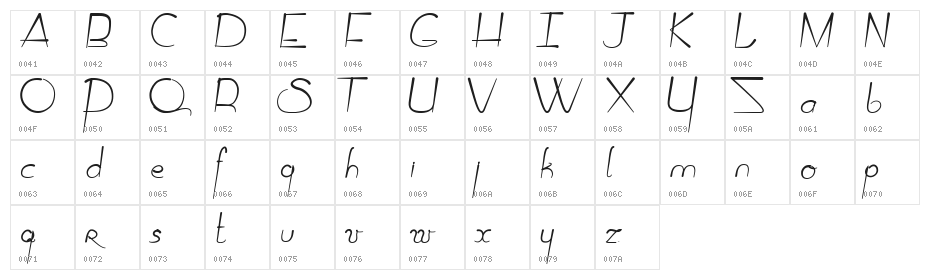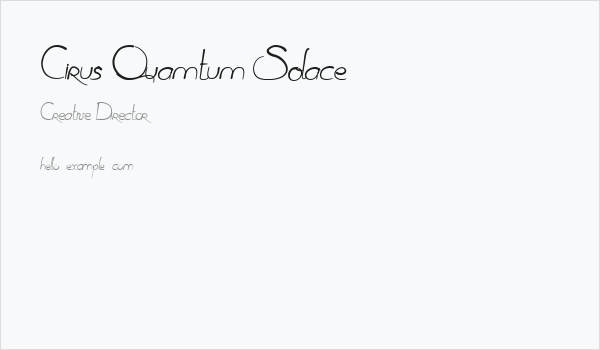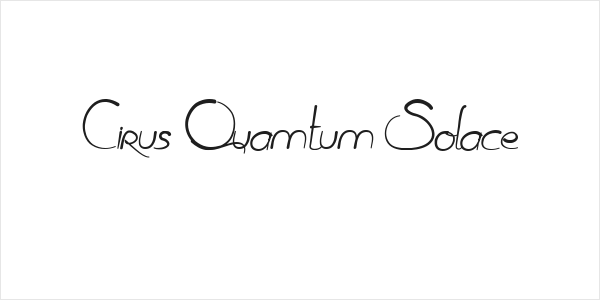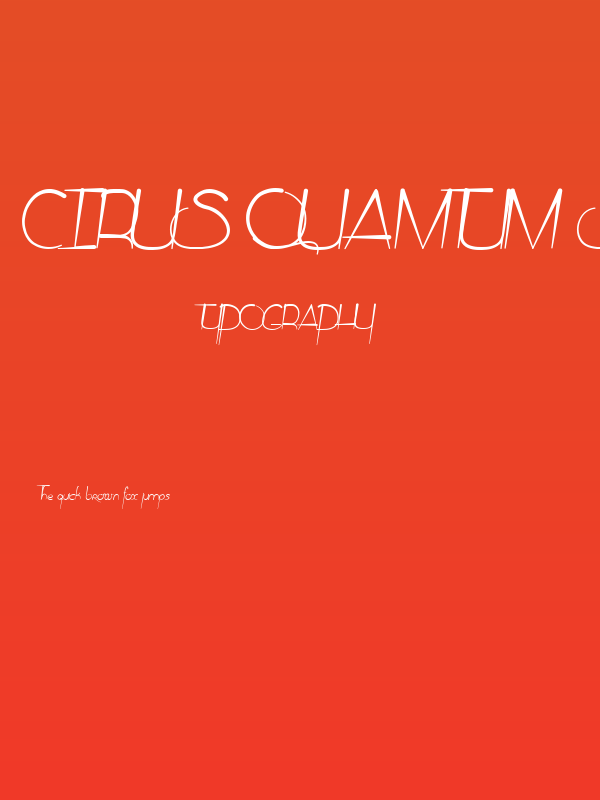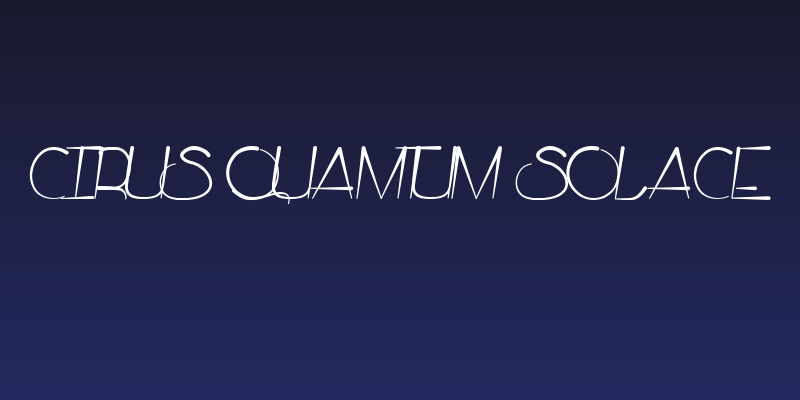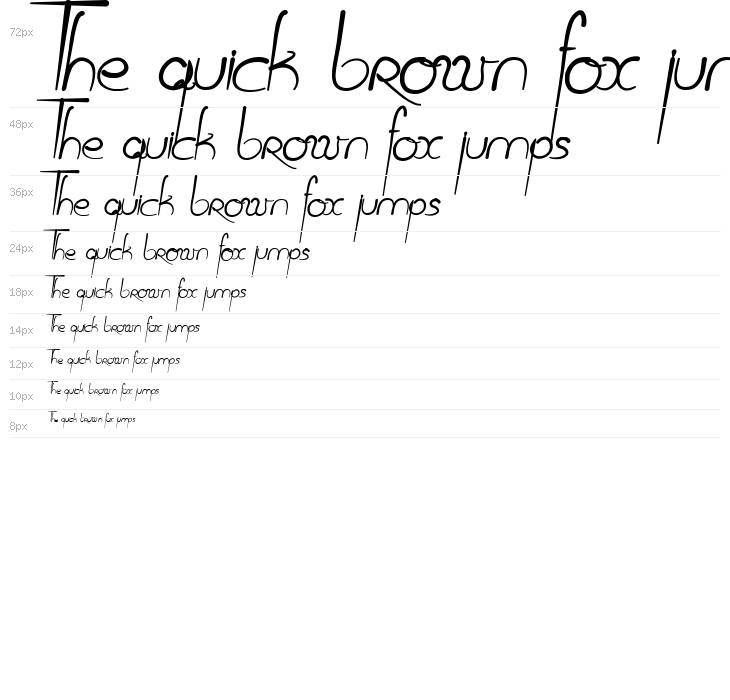
Cirus Quamtum Solace Font
Cirus Quamtum Solace Description
This font features a unique and modern design with elongated and slender characters. The uppercase letters are particularly striking, with a mix of sharp angles and smooth curves that create a futuristic appearance. The lowercase letters maintain this sleek style, offering a consistent look across the alphabet. The numbers and special characters follow the same design principles, ensuring uniformity. The overall aesthetic is both artistic and functional, making it suitable for creative projects that require a distinctive and contemporary touch.
Use CaseLogos, Headlines, Creative projects
Proposed ProjectsIdeal for branding, logos, album covers, and modern art projects.